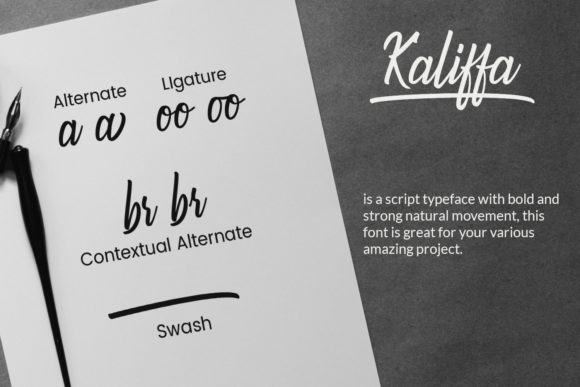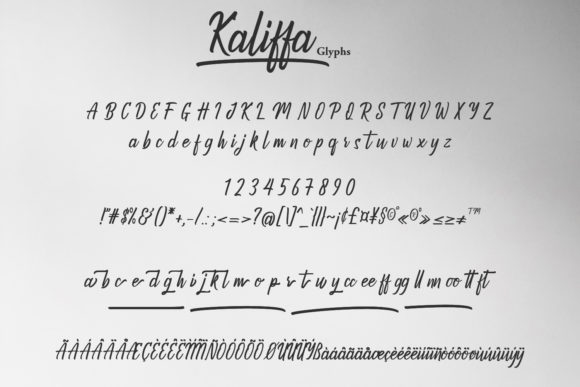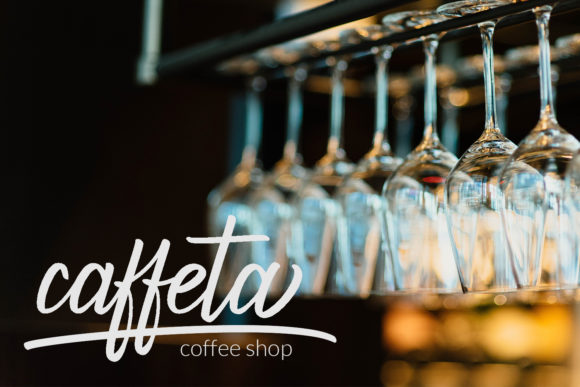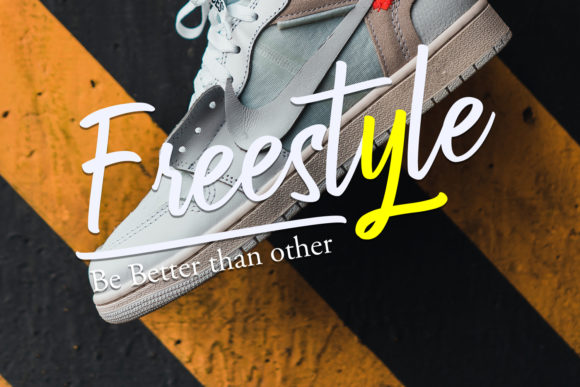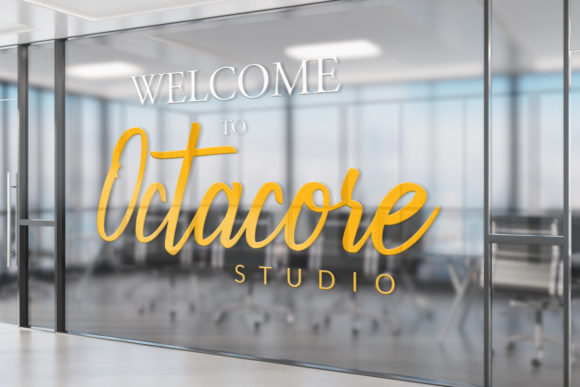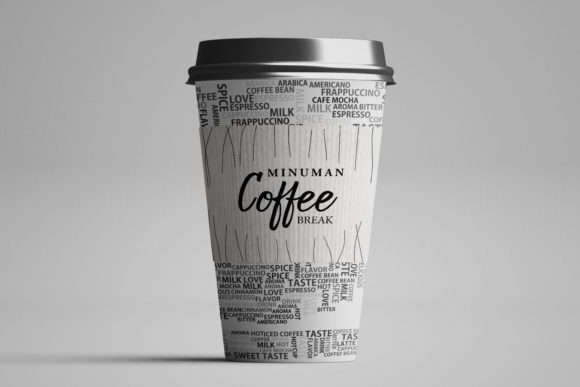
Introduction to Kaliffa Font
As a designer, there’s nothing quite like the thrill of bringing a creative project to life. You’ve poured your heart and soul into the design, and now it’s time to add the finishing touches. But what if you could take it to the next level with a font that’s as elegant as it is stylish? That’s where the Kaliffa Font comes in – a high-quality design resource that’s perfect for adding a handwritten touch to your work.
Whether you’re designing wedding invitations, business cards, or quotes, the Kaliffa Font is a valuable asset in your design arsenal. With its transparent background and free download option, it’s easy to incorporate into your creative projects. And with its versatility, you can use it for everything from logos to greeting cards – the possibilities are endless.
Key Features of Kaliffa Font
- Features a transparent background, allowing for seamless integration with any design or image.
- Designed with a modern and sleek aesthetic, perfect for use in logos, branding, and digital design.
- Supports a wide range of languages and character sets, making it a versatile choice for international projects.
Honest Review: Kaliffa Font
As a designer, I’m always on the lookout for high-quality design resources to elevate my creative projects. Recently, I stumbled upon the Kaliffa Font, and I must say it’s a gem.
- ✨ Elegant and sophisticated design aesthetic, perfect for luxury branding and high-end projects.
- ✨ Great for use in both print and digital mediums, including logos, typography, and signage.
- ⚠️ Limited character set, which may not be suitable for projects requiring a wide range of languages or characters.
- ⚠️ Some users may find the font’s transparency option to be a bit inconsistent, which can affect the overall design.
Overall, I’m impressed with the Kaliffa Font’s design quality and versatility. While it may not be perfect, it’s a solid addition to any designer’s toolkit, especially for creative projects requiring a high-end aesthetic. If you’re looking for a free design resource that’s easy to use and effective, give the Kaliffa Font a try.
Tips for Getting the Most Out of Kaliffa Font
To maximize the potential of Kaliffa Font, experiment with different font sizes and styles to achieve the desired effect. Additionally, pair the font with other high-quality design resources for a cohesive look.
Kaliffa Font is suitable for a variety of creative projects, including graphic design, digital art, and typography. Its transparent background feature makes it an ideal choice for creating visually appealing graphics and designs.